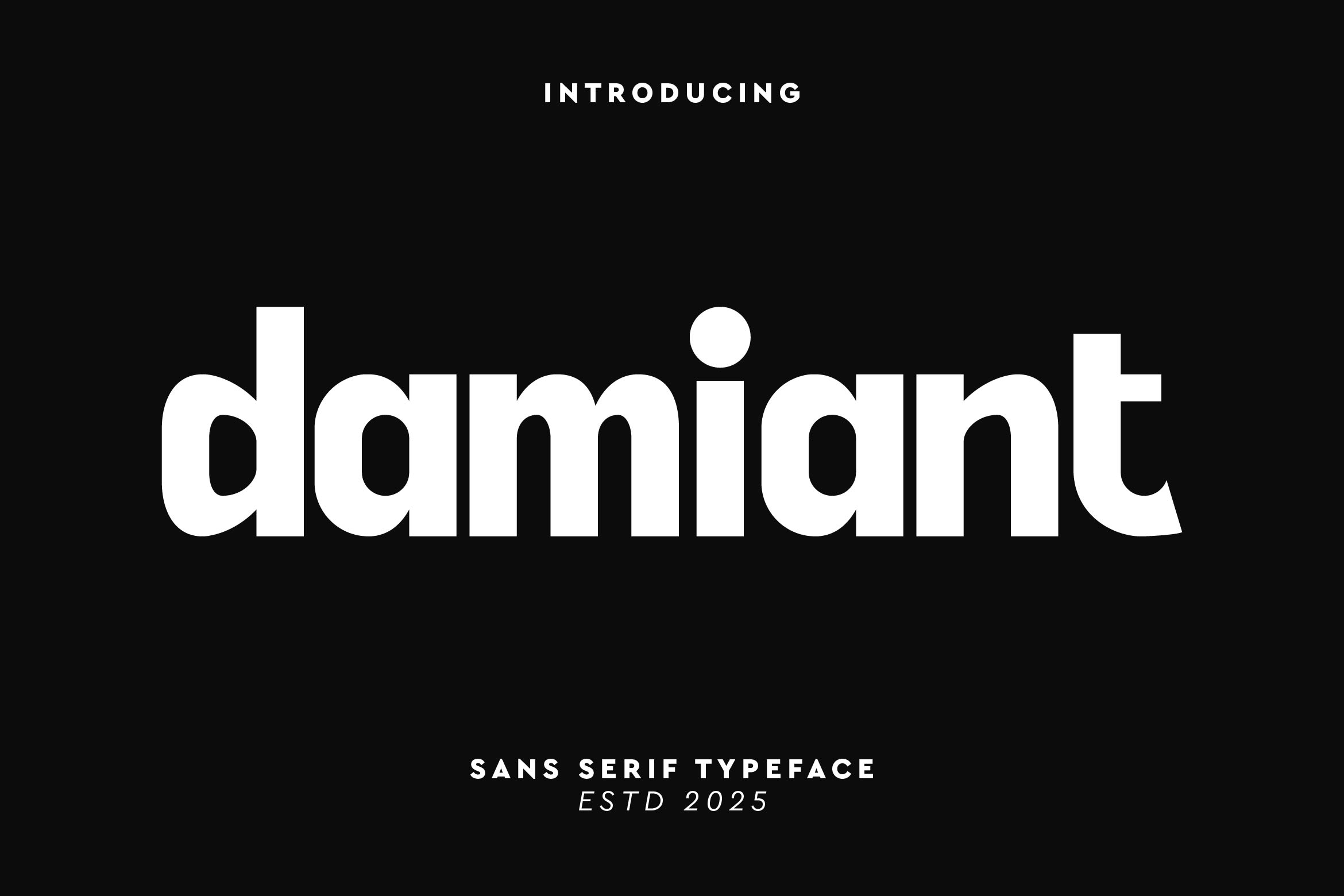
- Damiant Sans Serif Typeface
Damiant is a sleek and contemporary sans serif font crafted to deliver clarity, strength, and modern sophistication. With its clean lines, balanced proportions, and subtle geometric influence, Damiant is perfect for branding, editorial layouts, packaging, web design, social media graphics, and corporate identity systems.
Its versatile design ensures excellent readability in both large headlines and smaller text applications, making it a reliable choice for a variety of creative and professional projects. Damiant works seamlessly across industries such as tech, fashion, lifestyle, and modern startups.
The font includes uppercase and lowercase letters, numerals, punctuation, multilingual support, and stylistic alternates for extra customization options.
Bring a touch of timeless modernity to your typography with Damiant — the sans serif font that blends simplicity, elegance, and confident design.